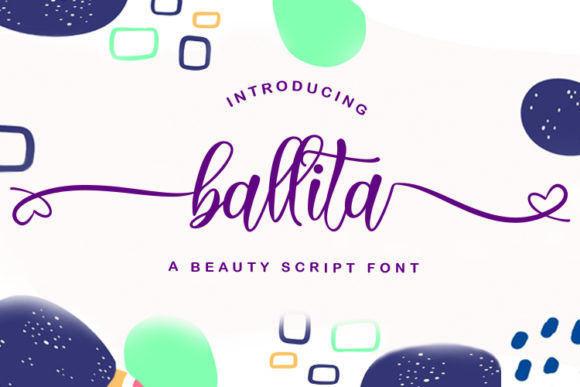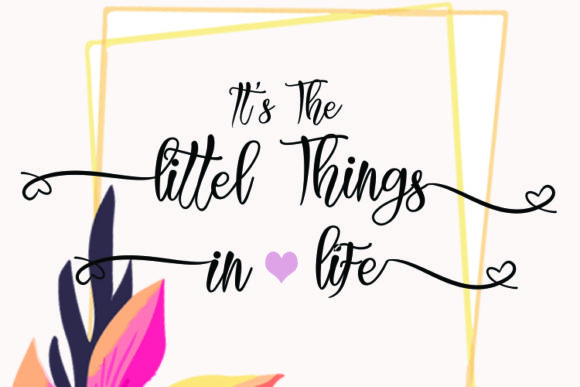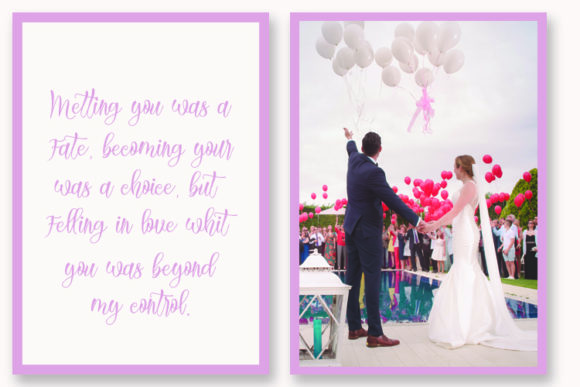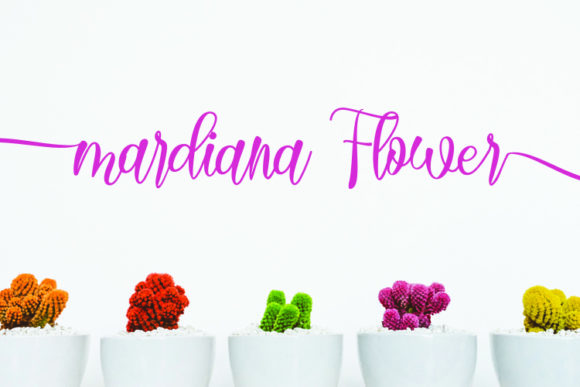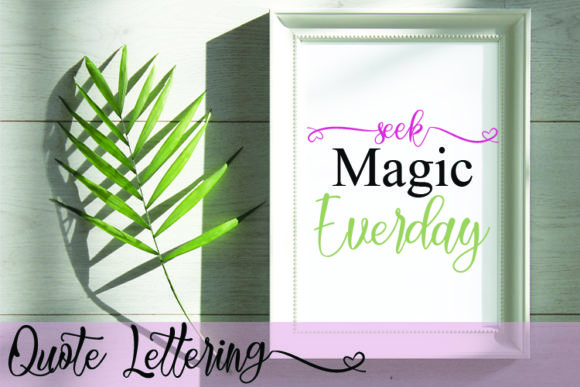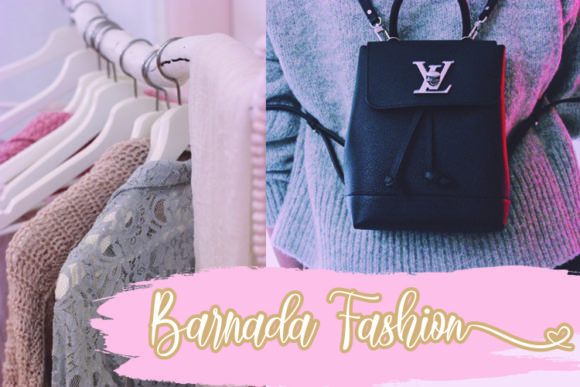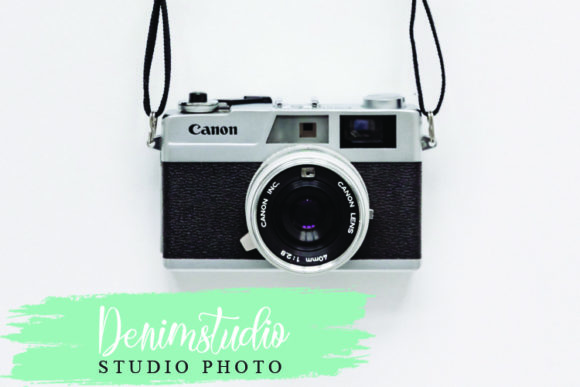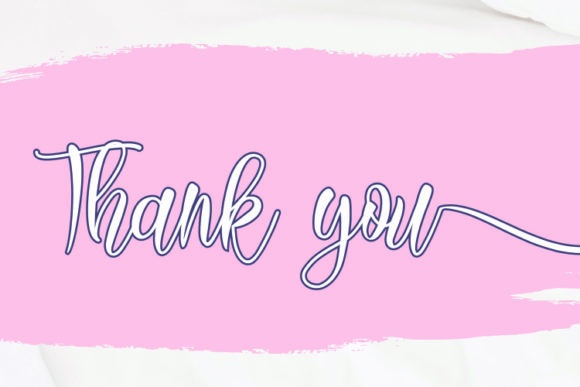
Ballita Font
About Ballita Font
Ballita is a lovely and elegant handwritten font. It looks stunning on wedding invitations, thank you cards, quotes, greeting cards, logos, business cards and every other design which needs a handwritten touch.